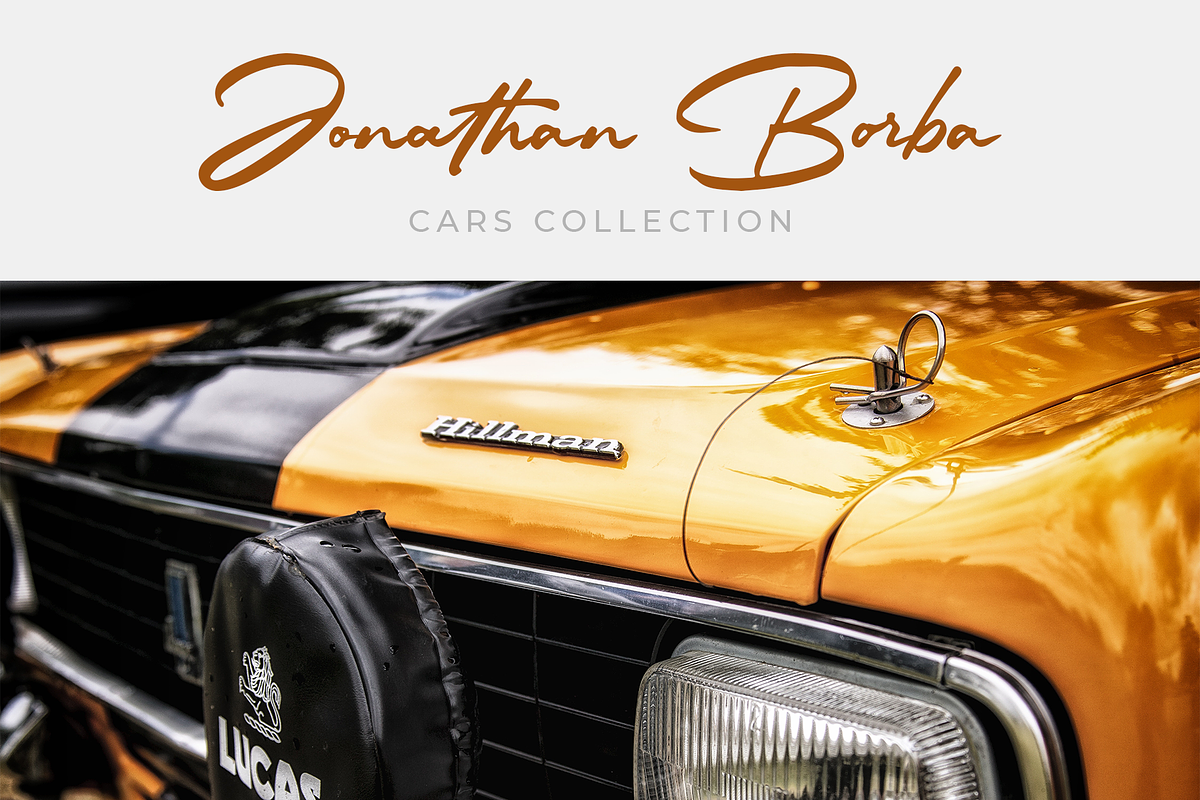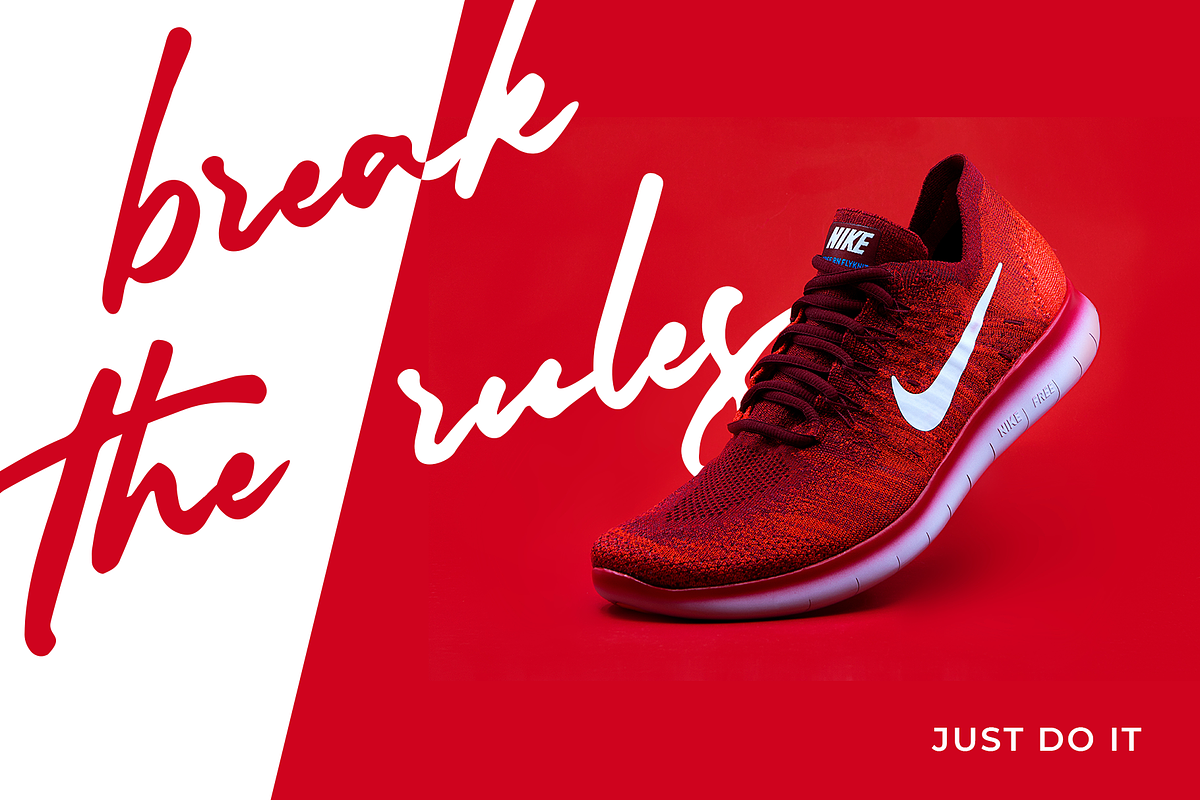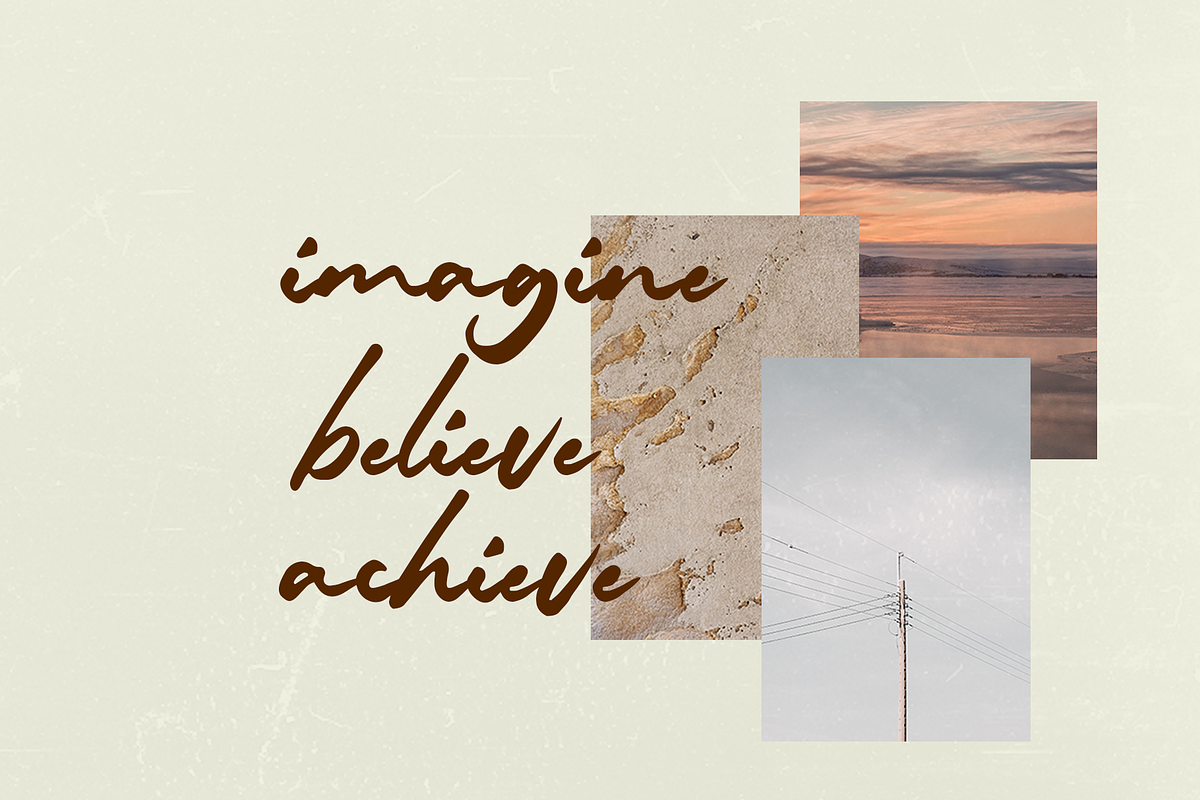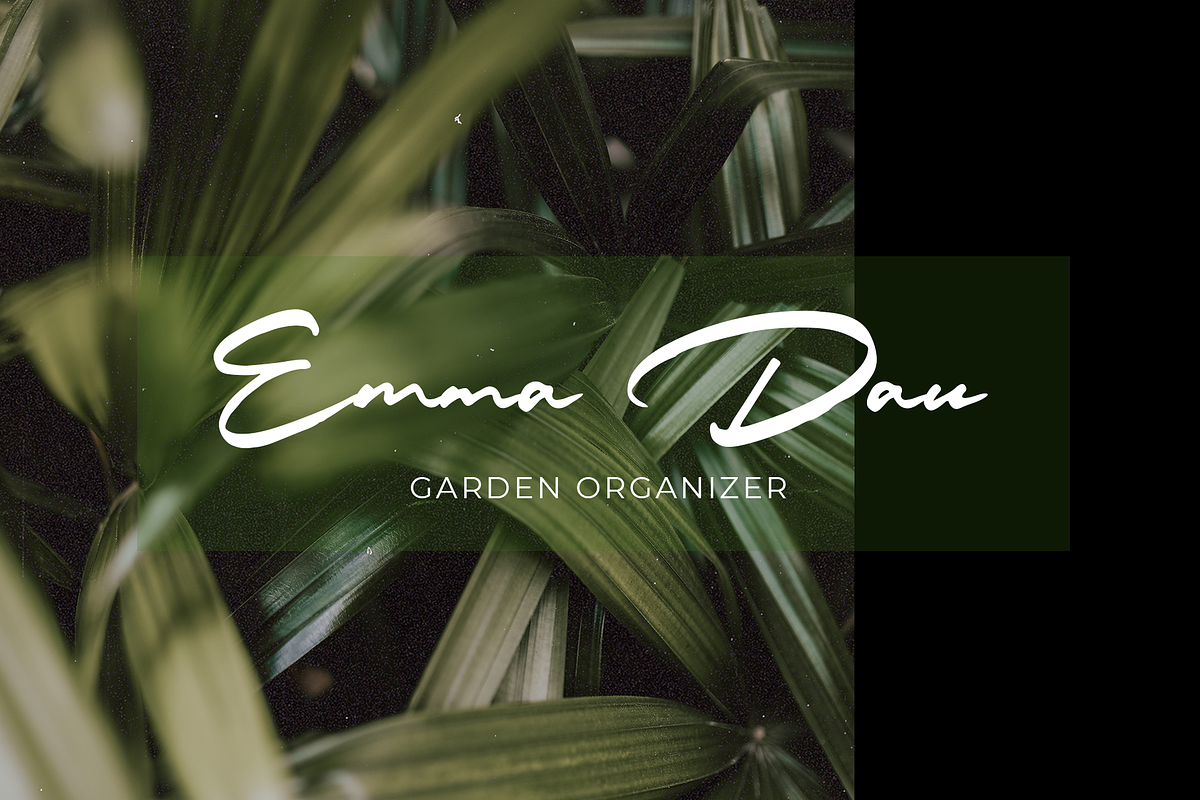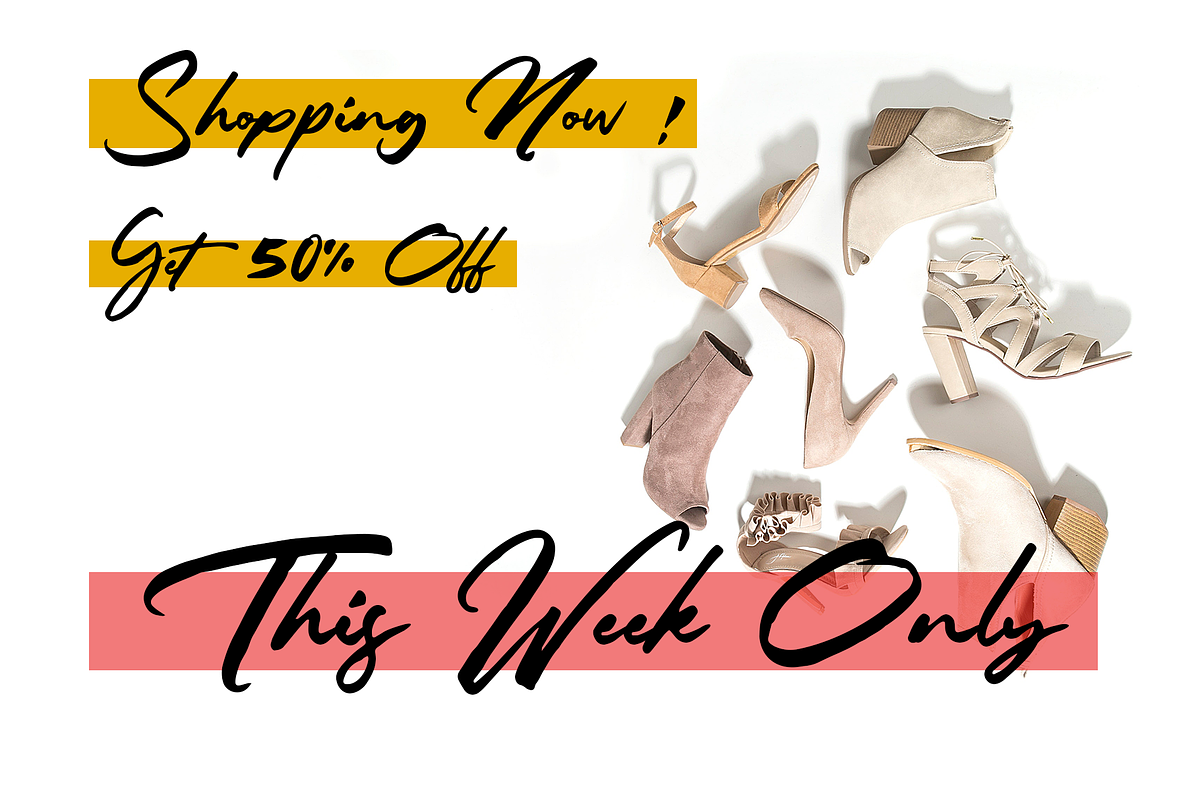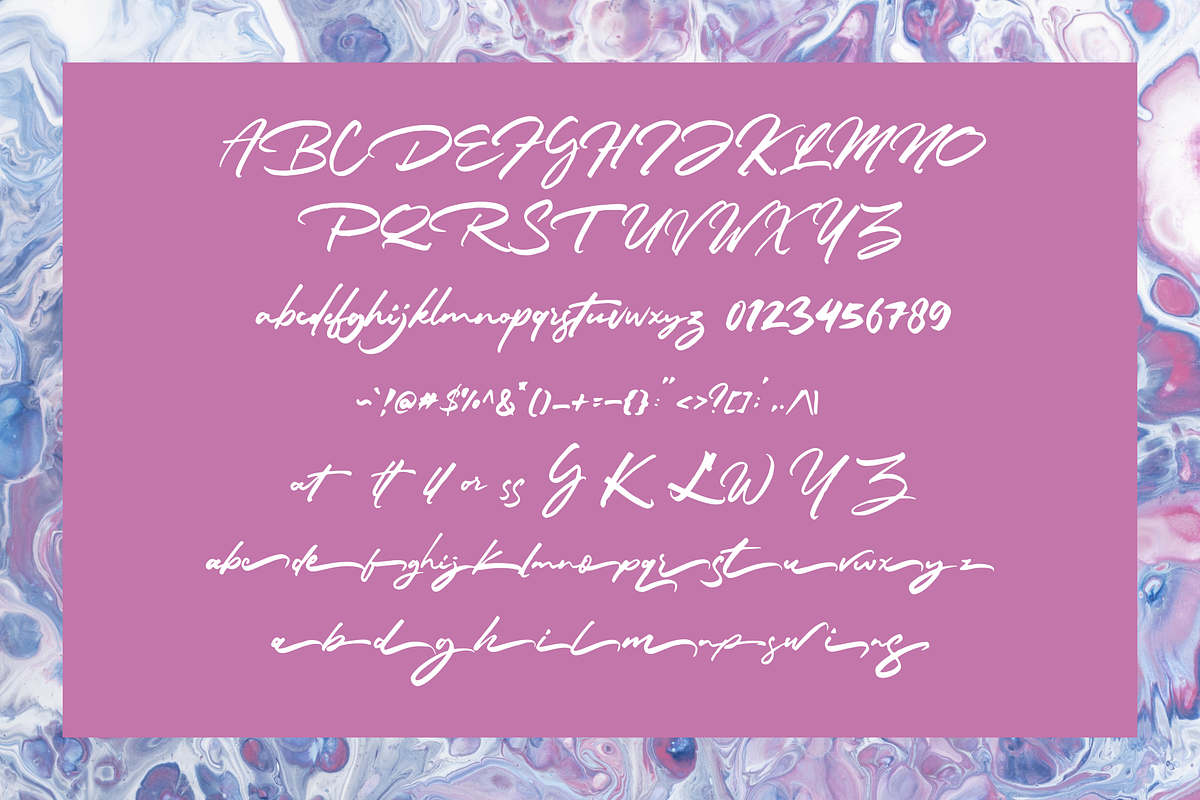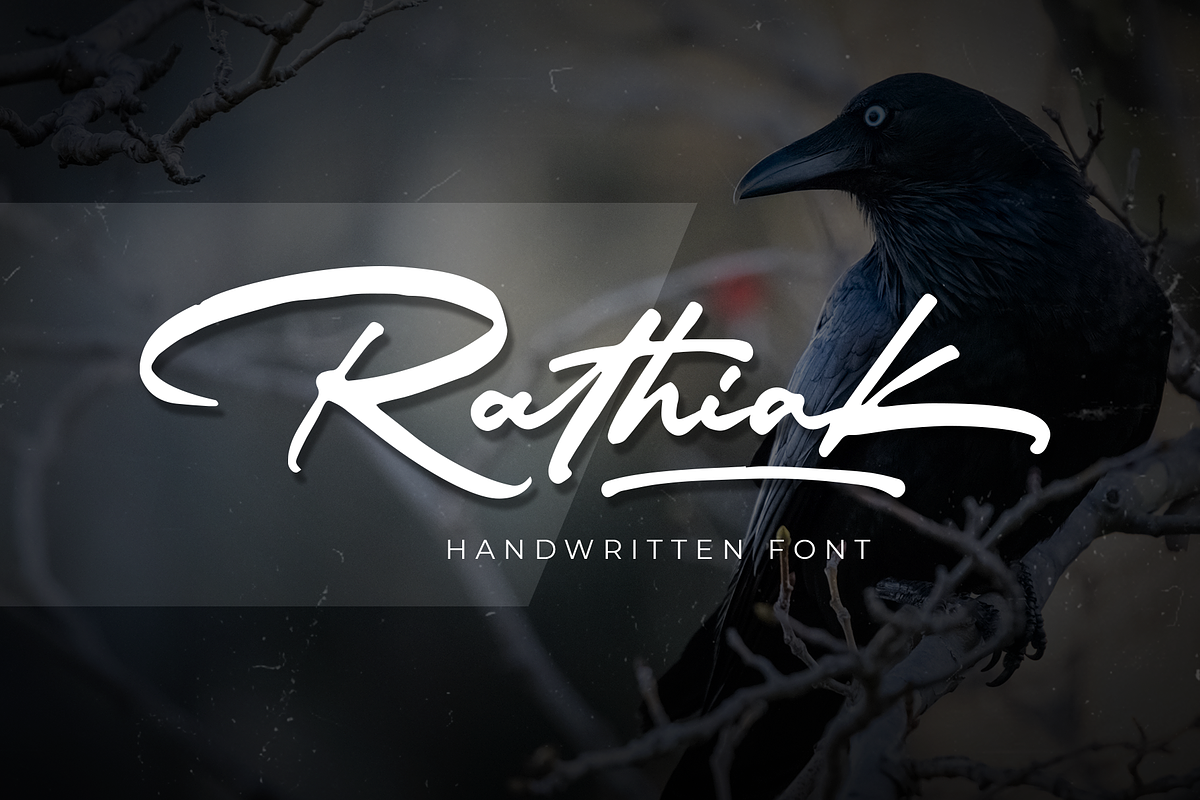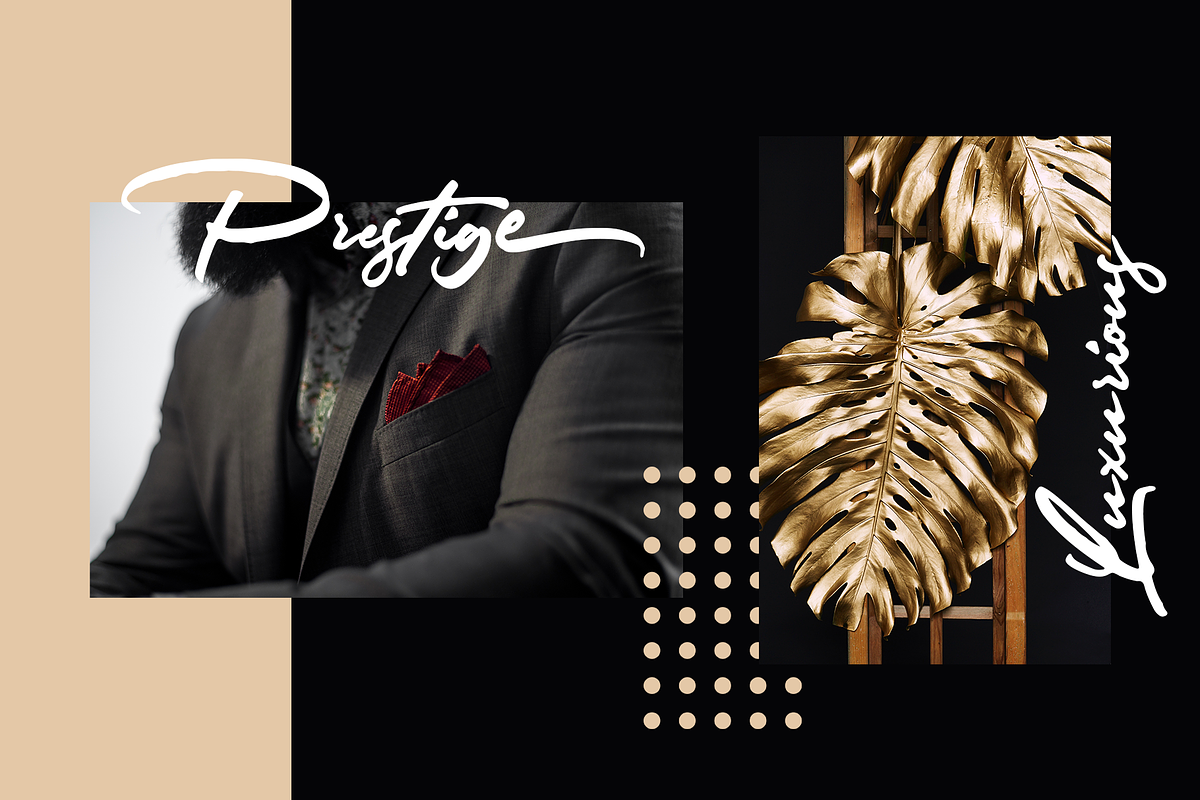
Rathiak - Handwritten
Introducing Rathiak , brush handwritten font. With the organic of handwritten feels. Came up with alternates, ligatures and separate swash font. This font will nail your any design projects. Grab it now !
- Ligatures ✔
- Alternates ✔
- Swashes ✔